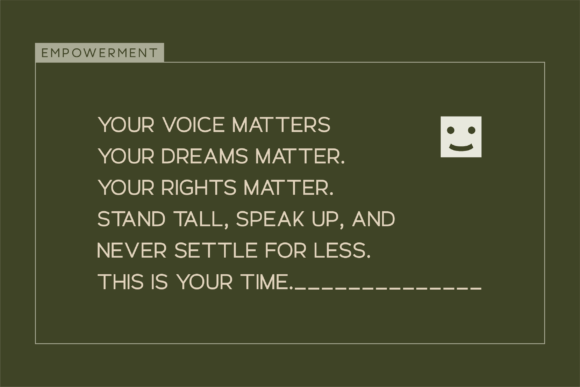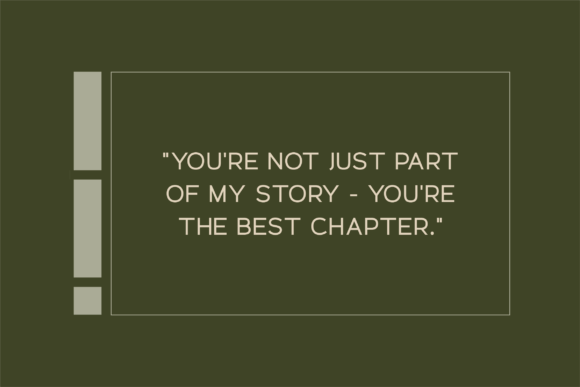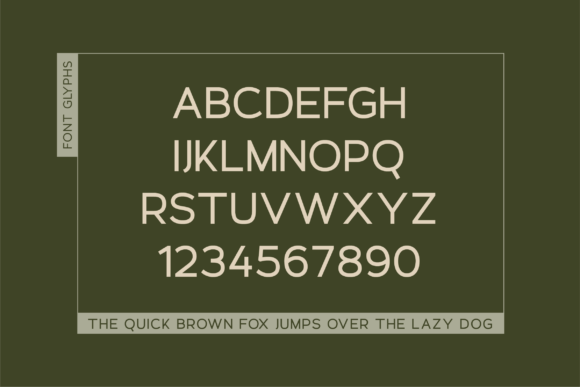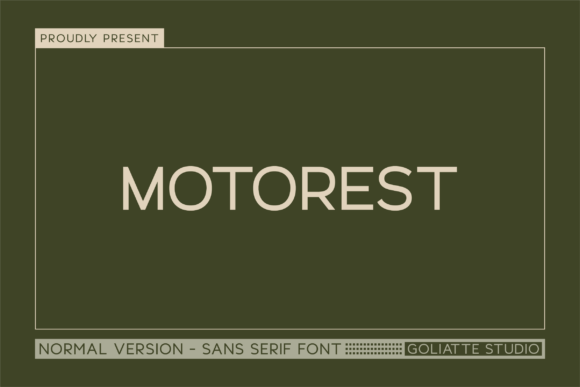
Introduction to Motorest Font
Motorest is a bold, all-caps sans serif font designed for the modern designer.
With its clean lines and minimalist aesthetic, this typeface exudes strength and authority It is perfect for projects that require a sense of professionalism and impact.